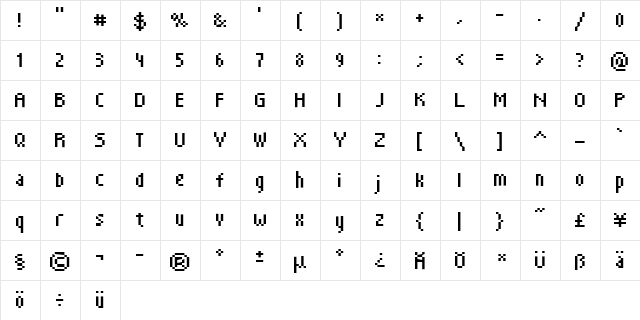
rktr6scd Regular
| Designer | leonhard lass |
Design Context for rktr6scd Typeface
rktr6scd offers clean, dependable letterforms without strong stylistic allegiance, making it a practical choice for designers who need flexibility.